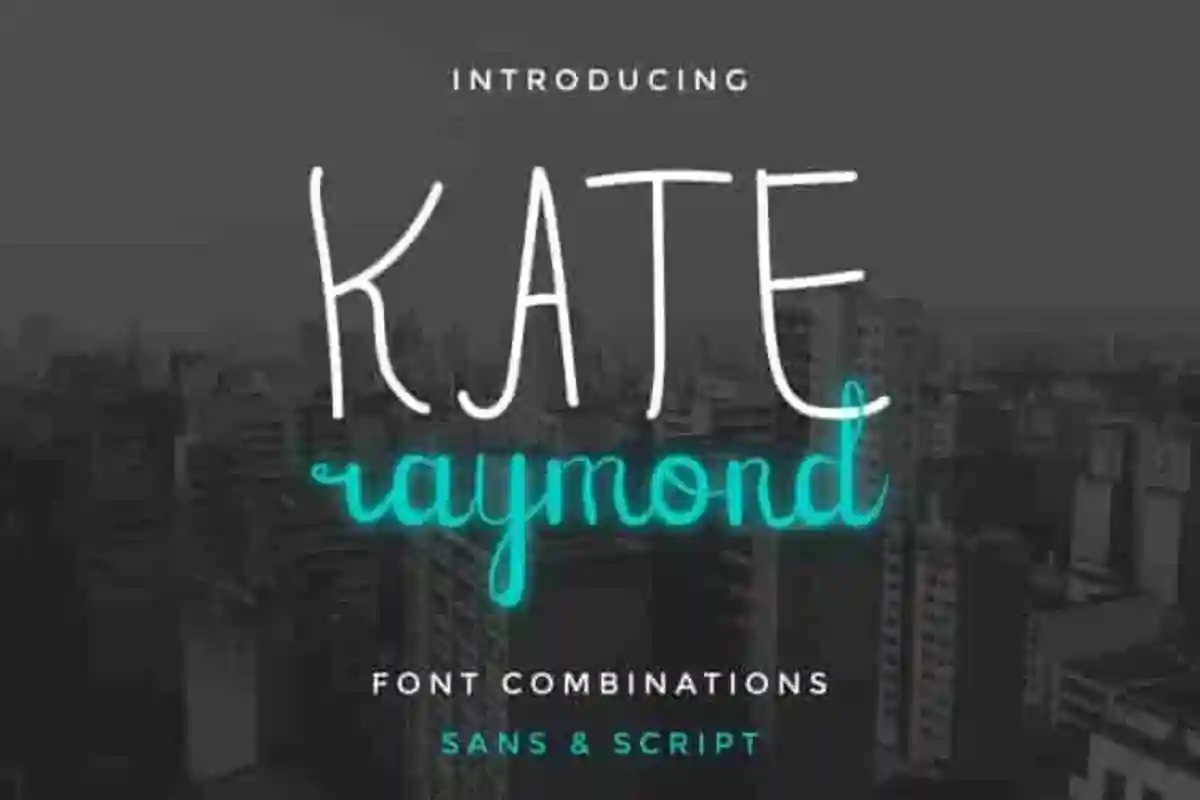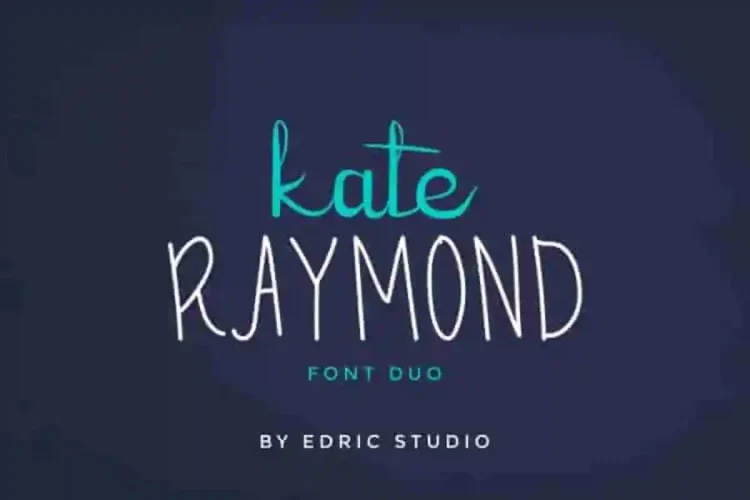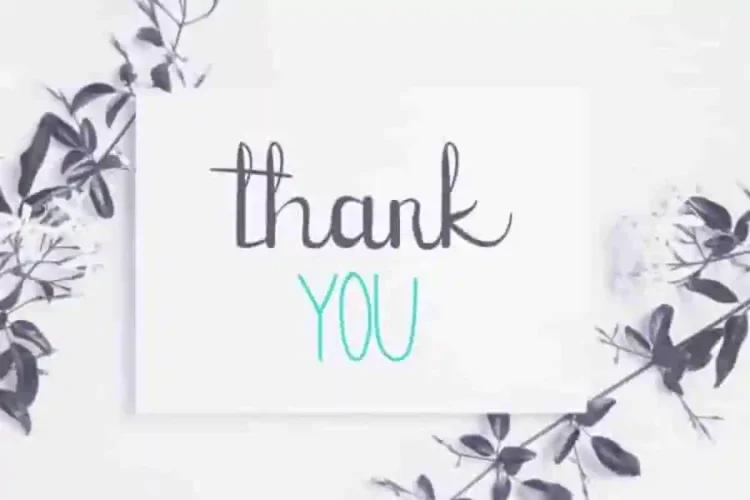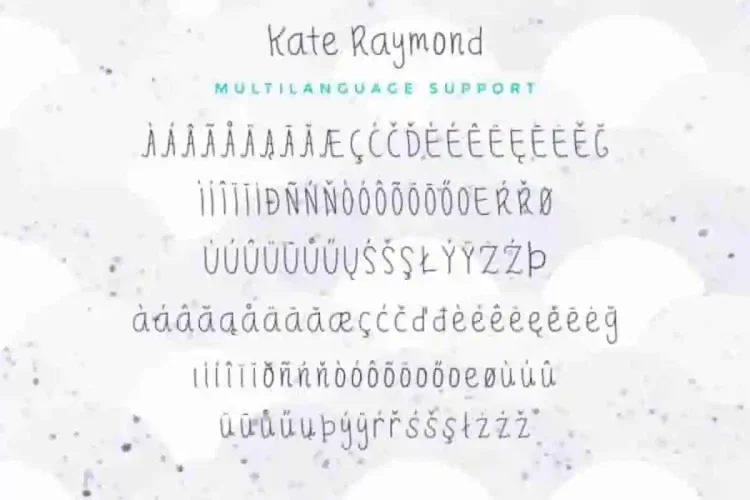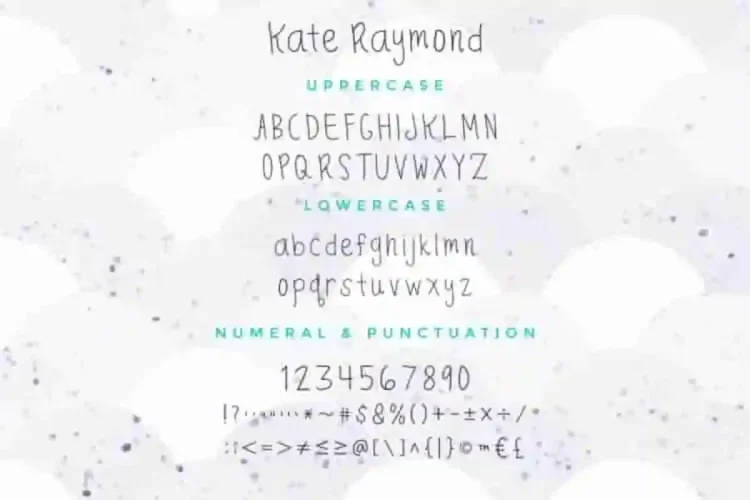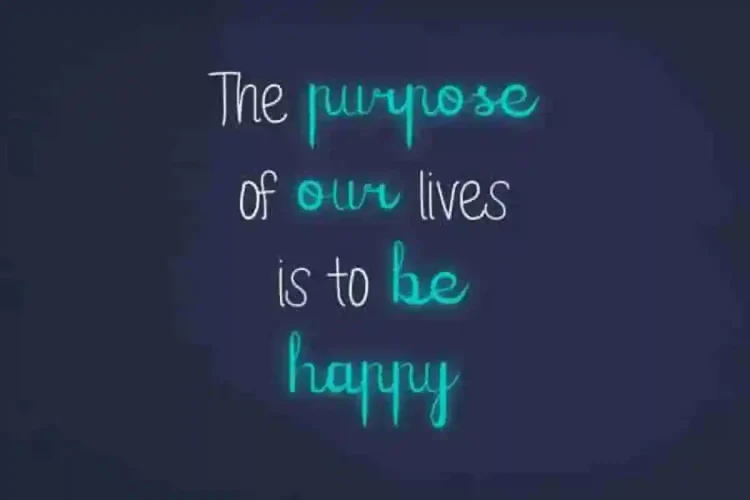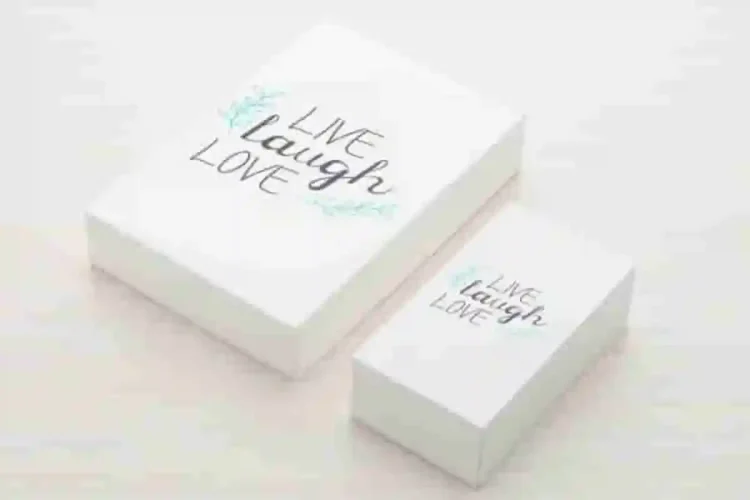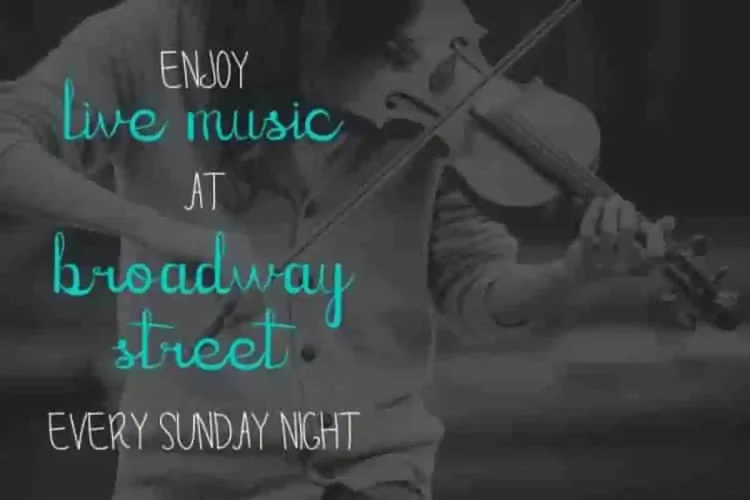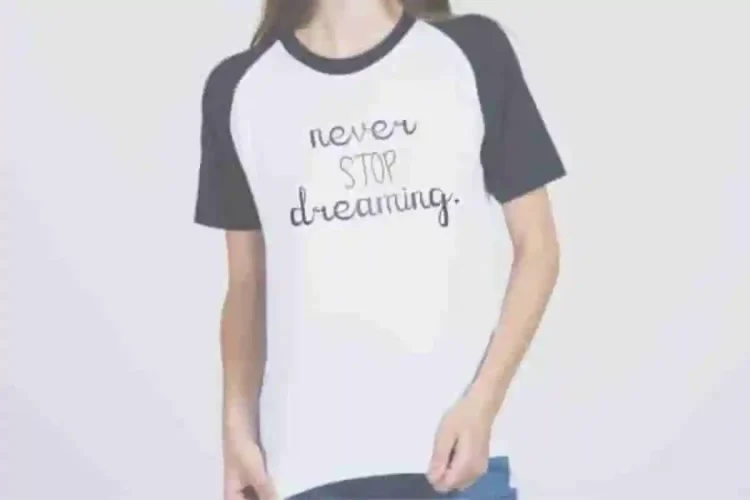
Kate Raymond Script Font Duo
Introducing! A new font by Edric Studio in 2020 : Kate Raymond Script Font Duo
Meet the Kate Raymond Script Font Duo, a unique handcrafted typeface created by talented letter artists Lukman, Ali, and Suci from Bandung and Garut, Indonesia.
Kate Raymond Script Font Duo has a stunning characters set, exclusively made for you :)
This is a new script decorative font with sans serif style. The characters style of this typeface is the strong, vintage, classic, simple, natural and beautiful
Perfect for brandings, logo type, or any other graphic products: poster, flyer, signage, merchandise, leaflet etc. Kate Raymond Script Font Duo combines a decorative script with a handwritten style that feels strong, vintage, classic, simple, natural, and beautifully timeless. Its authentic character makes it ideal for branding projects, logos, posters, flyers, signage, merchandise, leaflets, and much more.